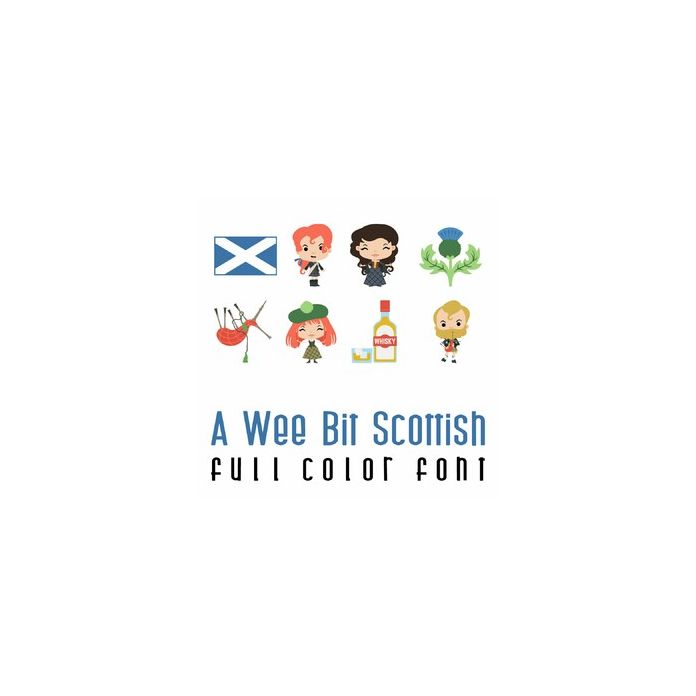
This fun full color doodlebat font features cute Scottish characters and imagery. Perfect for cards, crafts, gifts, decor, scrap book pages, planner stickers and more!